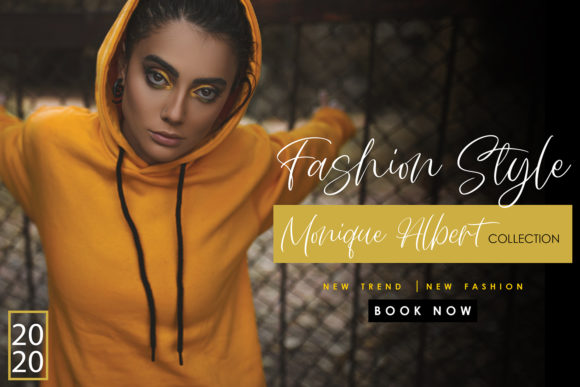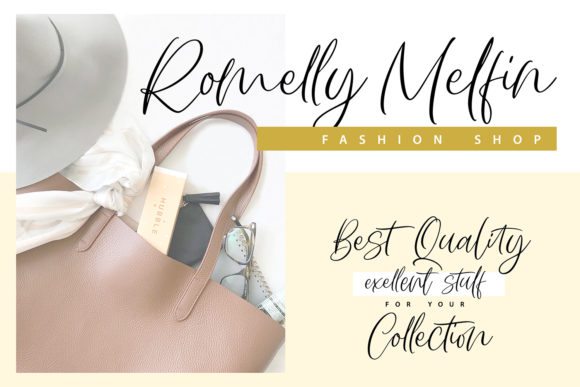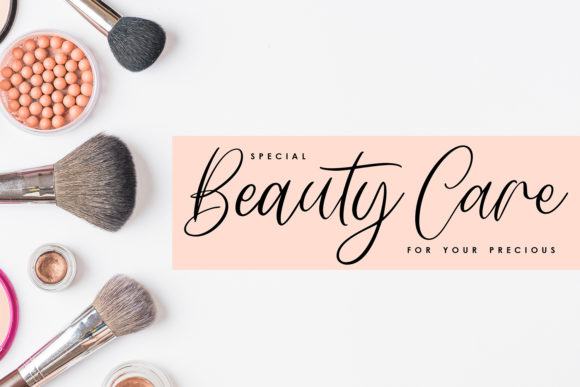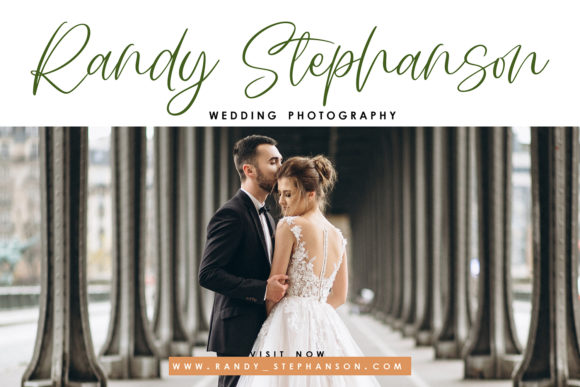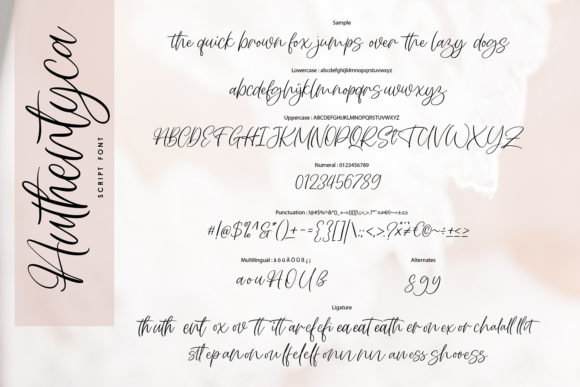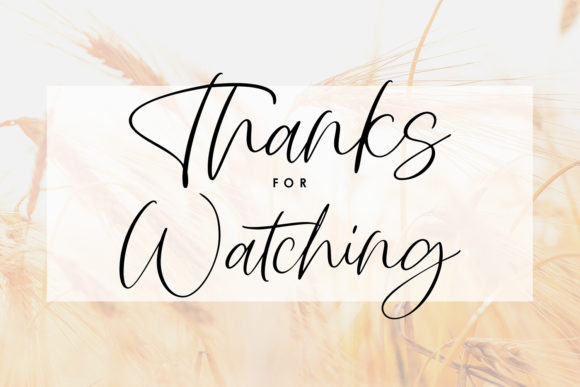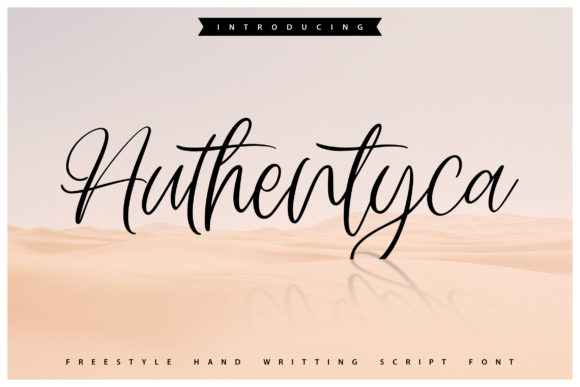
Introducing Authentyca Font: Elevate Your Designs with Elegance and Flair
In the world of typography, few fonts manage to convey the perfect blend of elegance, sophistication, and personal touch. Authentyca Font is one such exceptional typeface that has captured the hearts of designers and crafters alike. With its flowing lines, beautiful glyphs, and stunning alternates, Authentyca brings a handwritten touch to any design, making it truly unforgettable.
The Essence of Authentyca Font
Authentyca Font is a masterpiece of modern typography, designed to evoke a sense of luxury and refinement. Its elegant and flowing script is perfect for a variety of design projects, including wedding invitations, thank you cards, quotes, greeting cards, logos, business cards, and more. The font’s varying baseline, smooth lines, and gorgeous glyphs work in harmony to create a visually stunning effect that is sure to leave a lasting impression.
Wedding designers and event planners, rejoice! Authentyca Font is an ideal choice for creating beautiful wedding invitations, save-the-date cards, and other event-related materials. Its elegant and sophisticated design exudes romance and luxury, setting the tone for an unforgettable celebration. Whether you’re designing formal wedding invitations or whimsical party decorations, Authentyca Font is the perfect companion to bring your vision to life.
Adding a Personal Touch to Your Designs
What sets Authentyca Font apart from other typefaces is its unique, handwritten feel. The font features stunning alternates, allowing you to add a personal touch to your designs and make them truly one-of-a-kind. With Authentyca, you can create custom quotes, greeting cards, and social media graphics that reflect your personality and style.
Authentyca Font is incredibly versatile, making it suitable for a wide range of design projects. From logos and business cards to blog headers and social media graphics, this font can elevate any design with its elegant and sophisticated touch. Whether you’re a professional designer or a DIY crafter, Authentyca Font is an excellent addition to your typography collection.
Key Features of Authentyca Font
- Elegant and flowing script: Perfect for creating sophisticated and refined designs.
- Varying baseline: Adds a touch of whimsy and personality to your designs.
- Smooth lines: Creates a beautiful, fluid effect that is easy on the eyes.
- Gorgeous glyphs: Adds visual interest and depth to your designs.
- Stunning alternates: Allows you to create custom designs that are truly one-of-a-kind.
Tips for Using Authentyca Font
To get the most out of Authentyca Font, here are a few tips to keep in mind:
- Pair with complementary fonts: Combine Authentyca with other fonts to create a unique and visually appealing design.
- Experiment with colors and textures: Add depth and interest to your designs by experimenting with different colors and textures.
- Use for headlines and titles: Authentyca Font is perfect for creating eye-catching headlines and titles that grab attention.
In conclusion, Authentyca Font is a truly exceptional typeface that can elevate any design with its elegant and flowing script. With its versatility, stunning alternates, and gorgeous glyphs, this font is perfect for designers and crafters looking to add a personal touch to their work. Whether you’re creating wedding invitations, logos, or social media graphics, Authentyca Font is an excellent choice that is sure to leave a lasting impression.